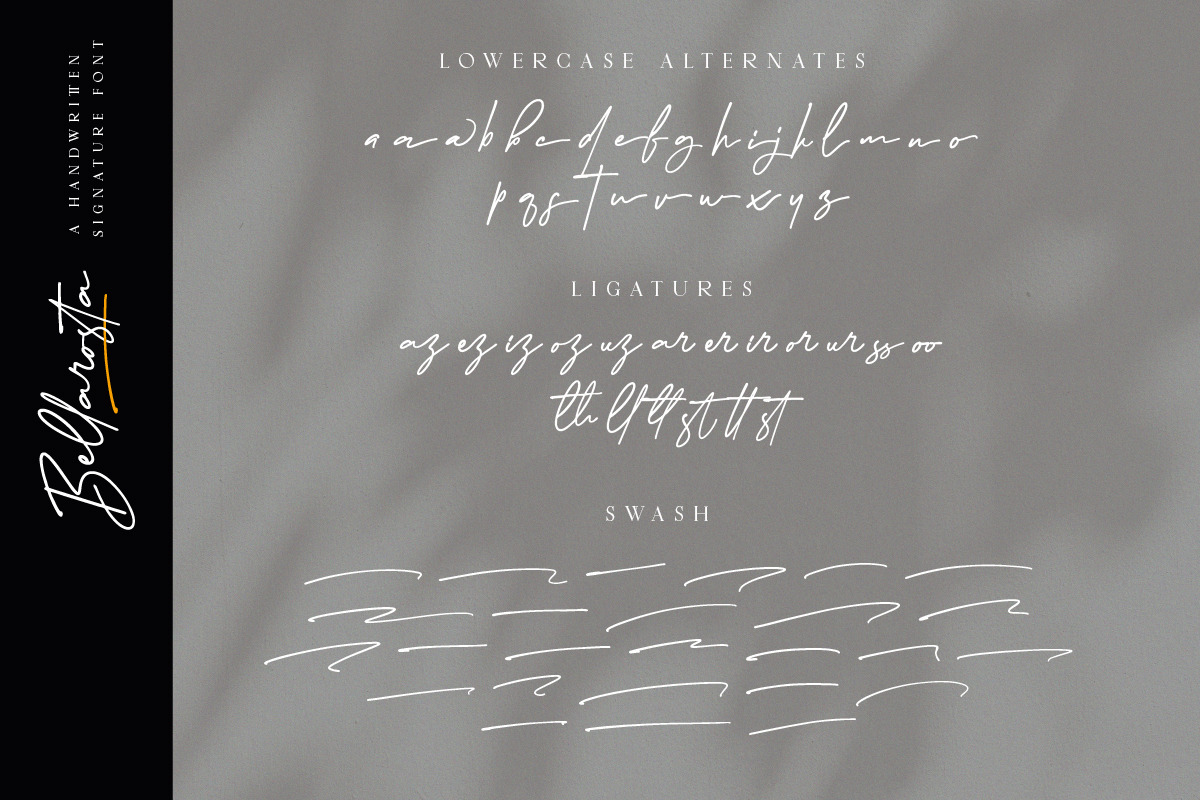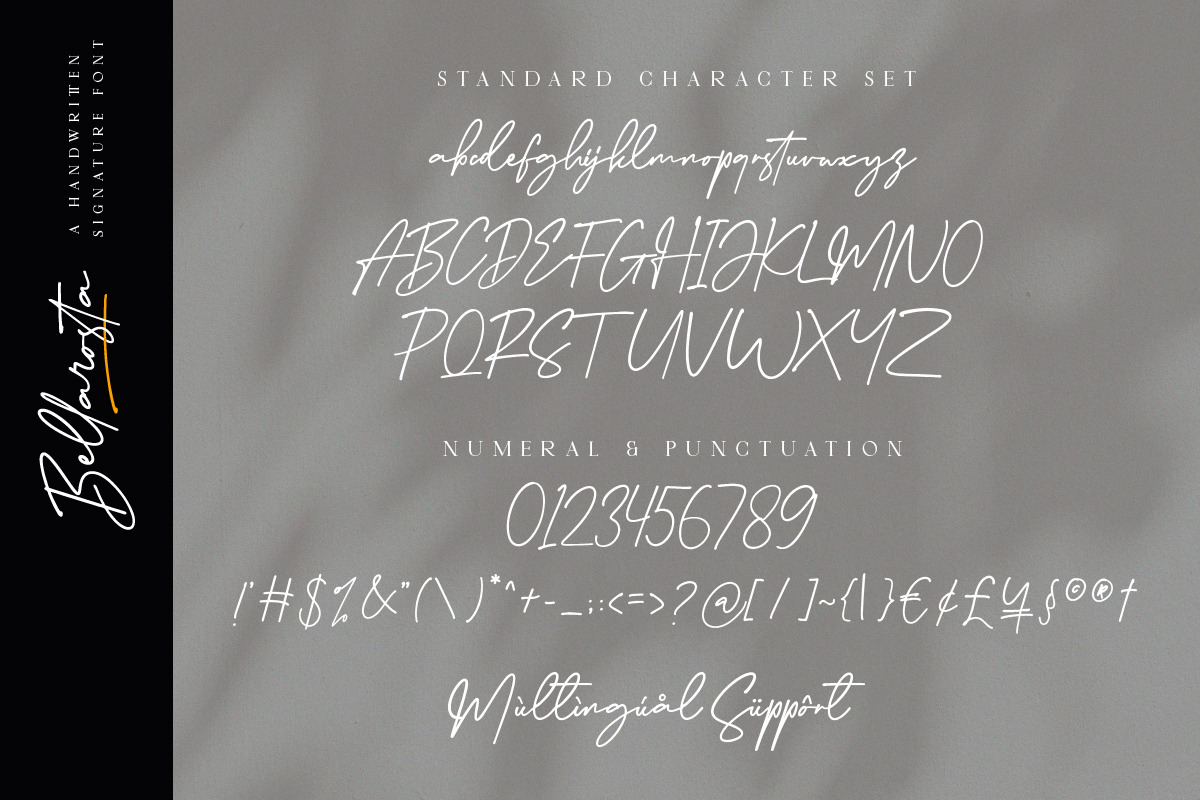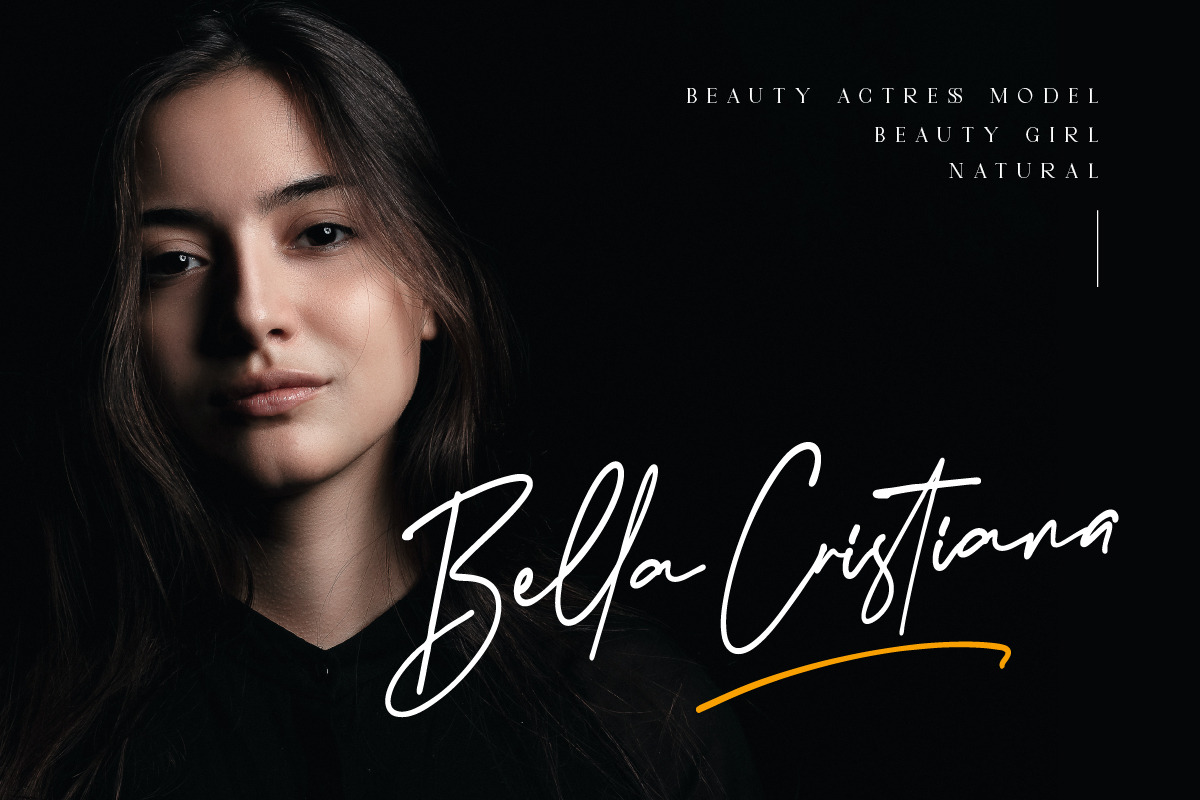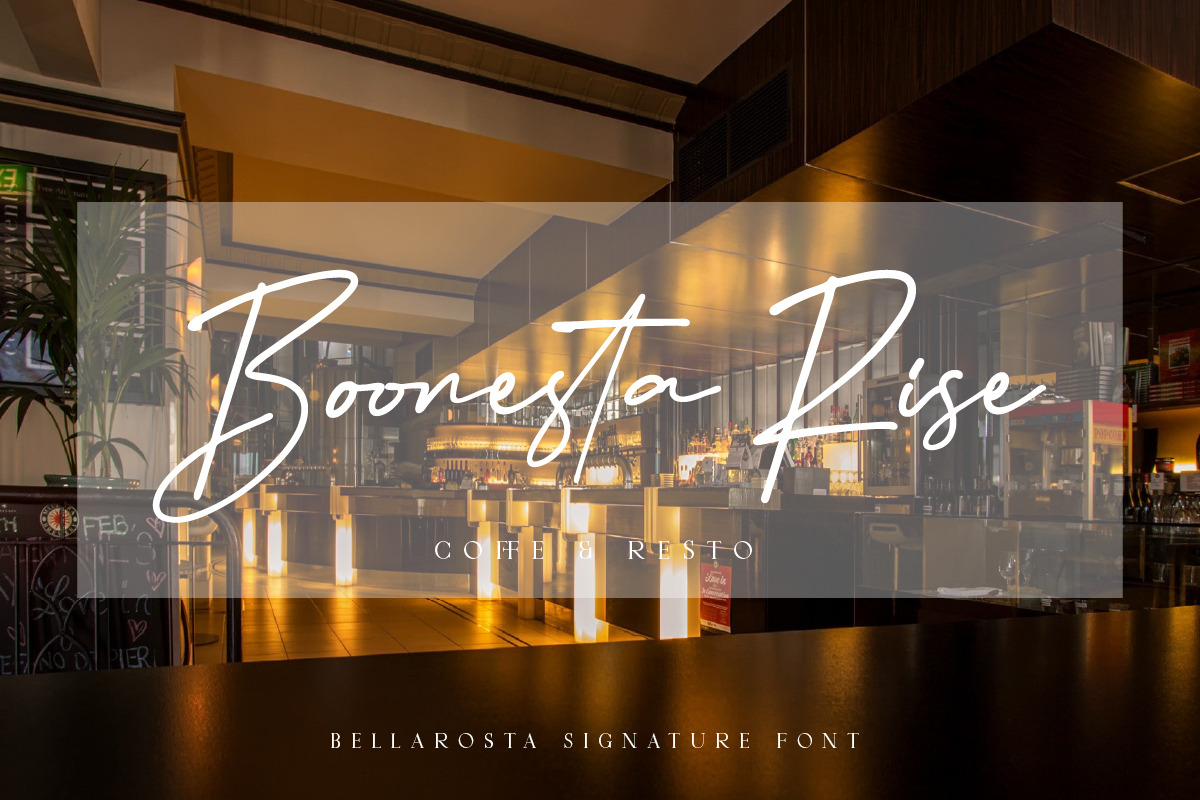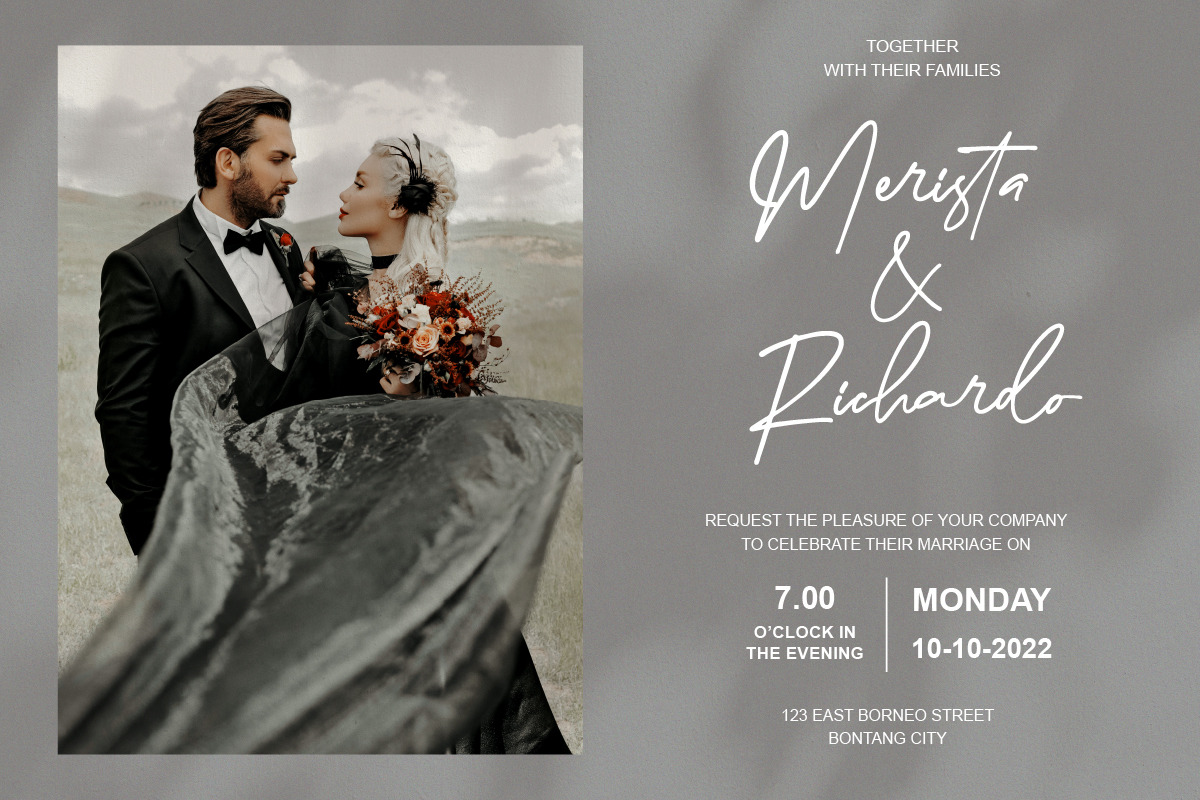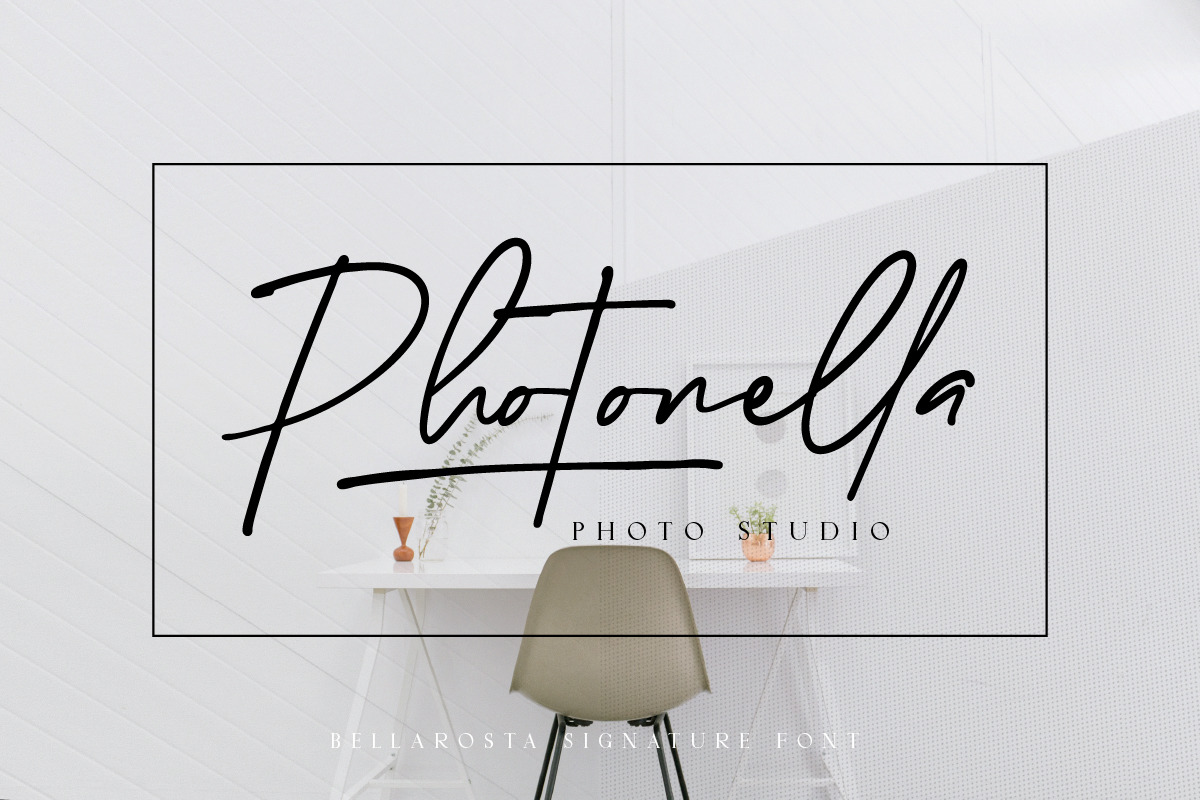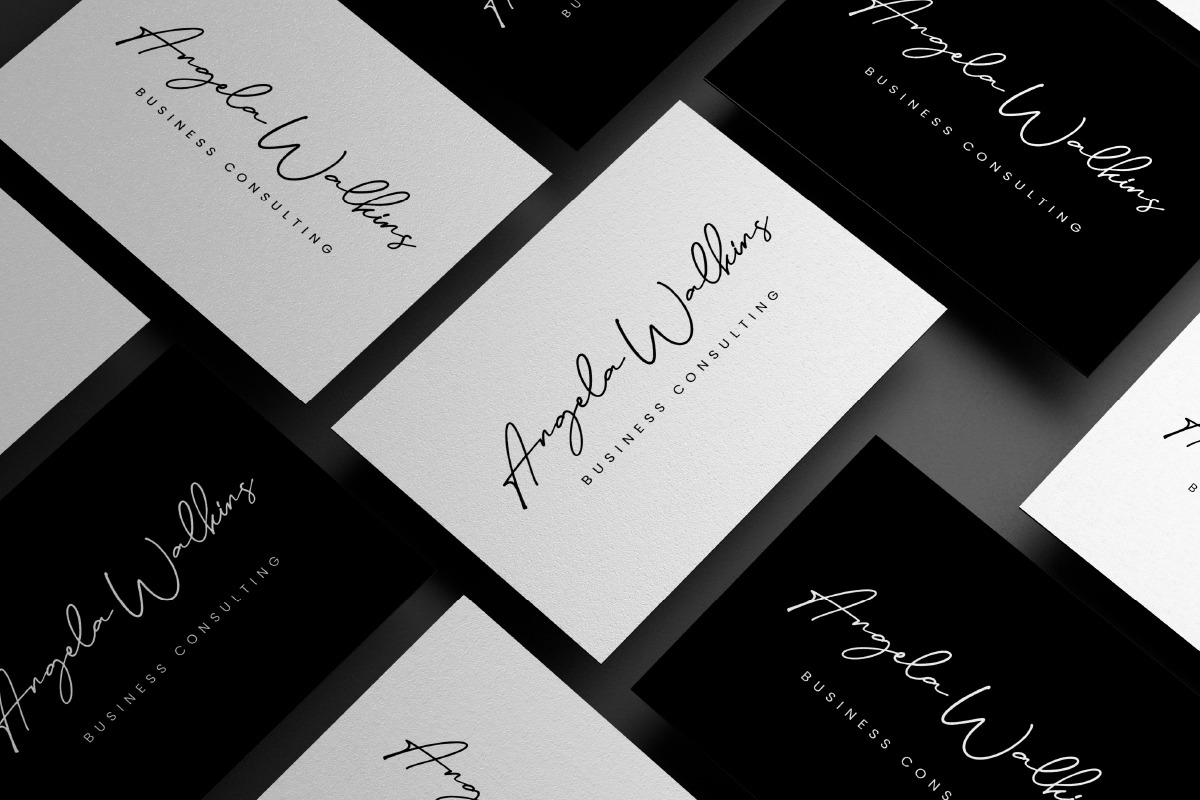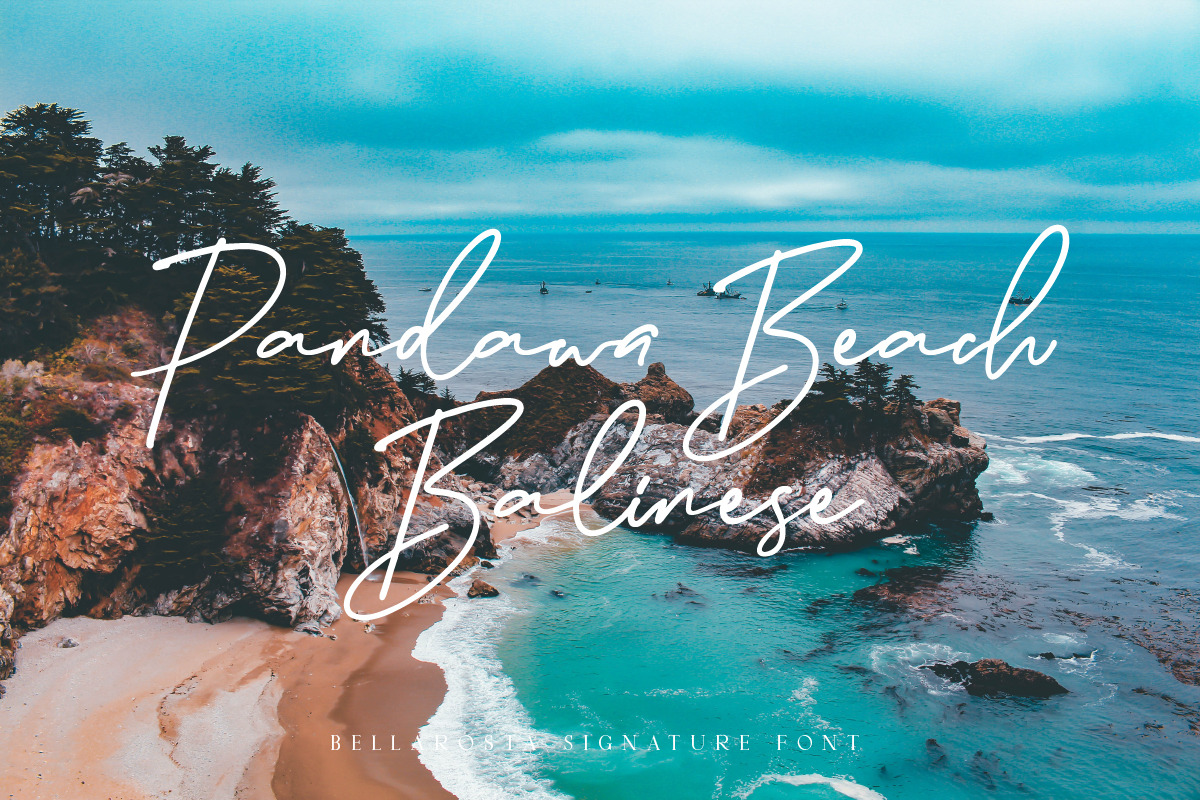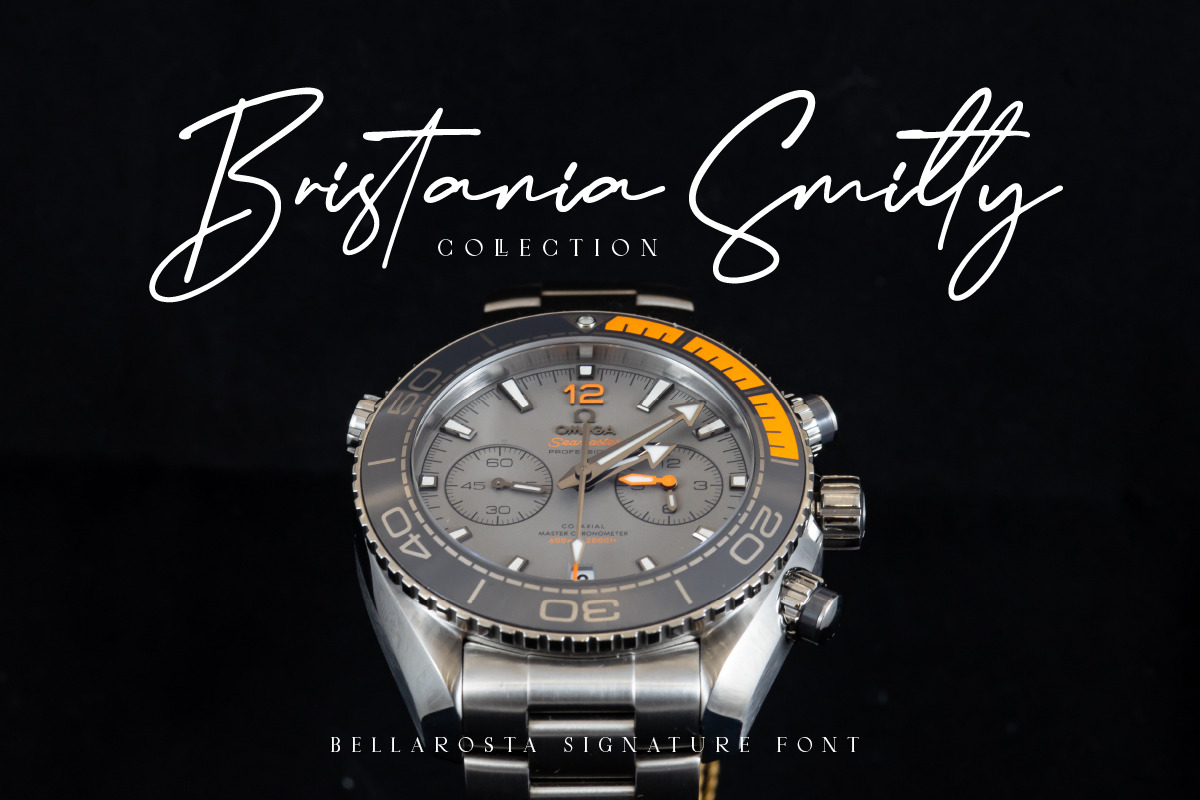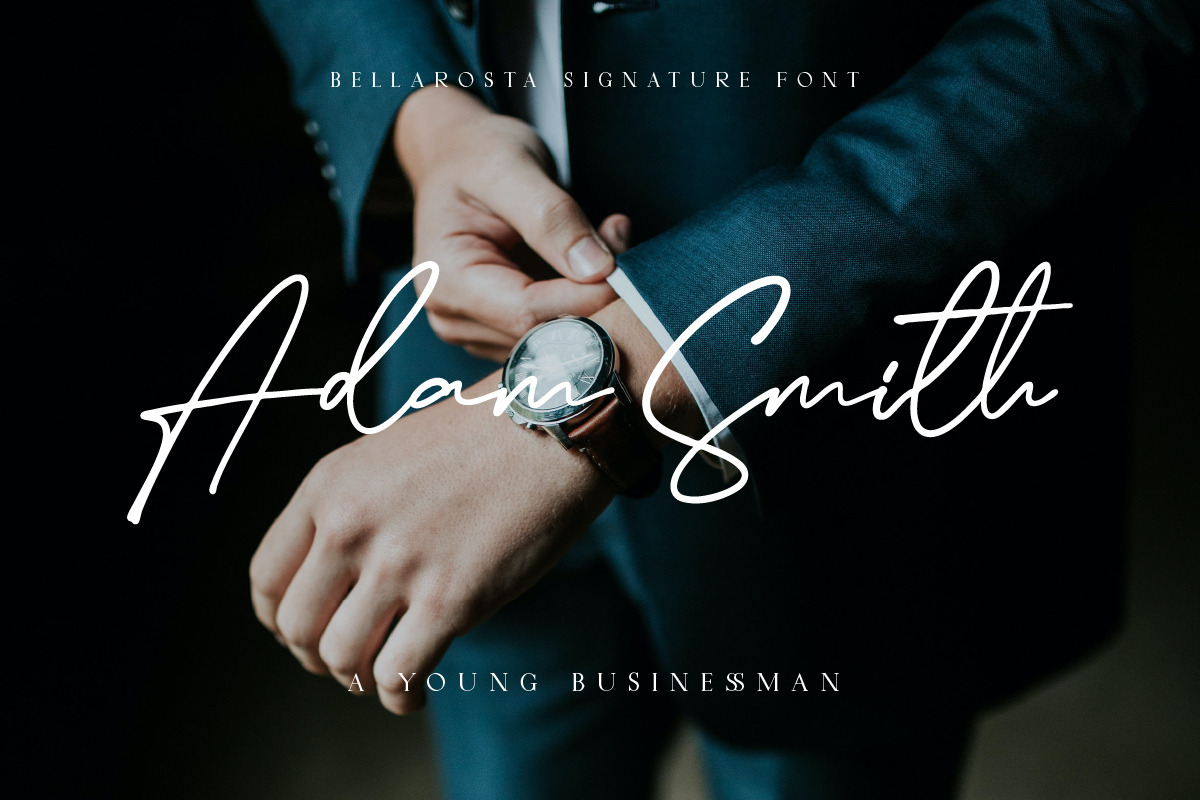
Bellarosta Signature Business Font
Bellarosta is a signature script font with beautiful strokes. This font is impressive and features a clean and elegant font, professionally shaped, and as a result, it will easily match a variety of creations that require a different touch. Add it with confidence to your projects, and you'll love the results. This typeface is perfect for elegant logos, branding, promotions, layout magazines, beauty products, business cards, weddings, quotes, or simply as a stylish text overlay onto any background image.
2 Weight Font :
- Italic
Bellarosta Features :